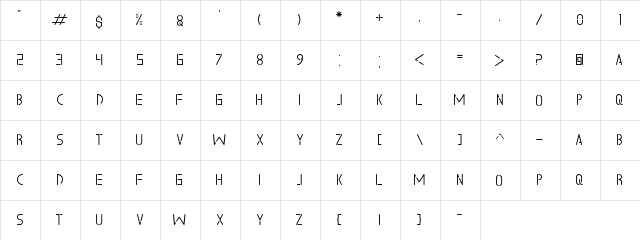
SOFTBOX Regular
| Designer | Green Adventure. 2019 |
Design Context for SOFTBOX Typeface
SOFTBOX offers clean, dependable letterforms without strong stylistic allegiance, making it a practical choice for designers who need flexibility.